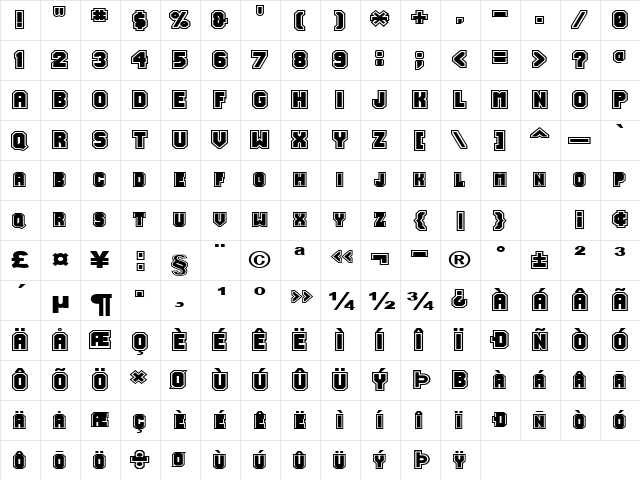
Jersey-Extended Normal
Design Context for Jersey-Extended Typeface
Jersey-Extended has the bold swagger of sports branding: strong, assertive letterforms designed to dominate headlines and jerseys alike.
Built for sports team identities, athletic apparel, event posters, and high-energy promotional material.